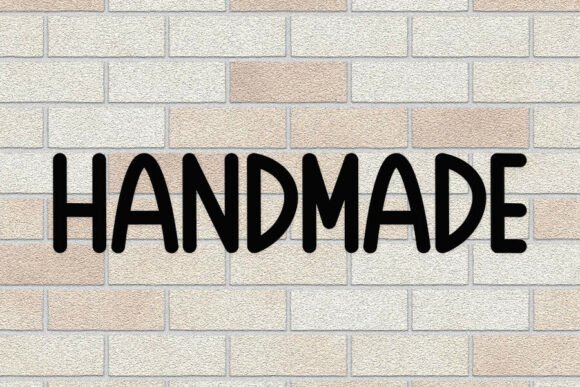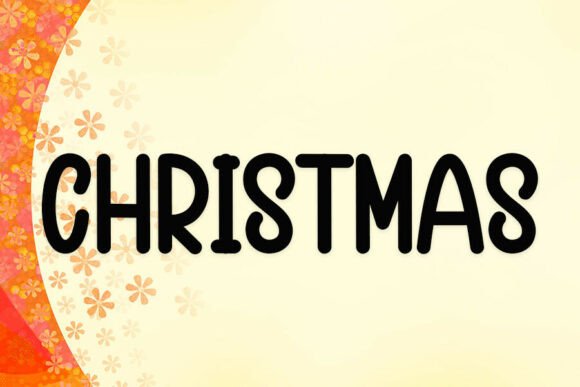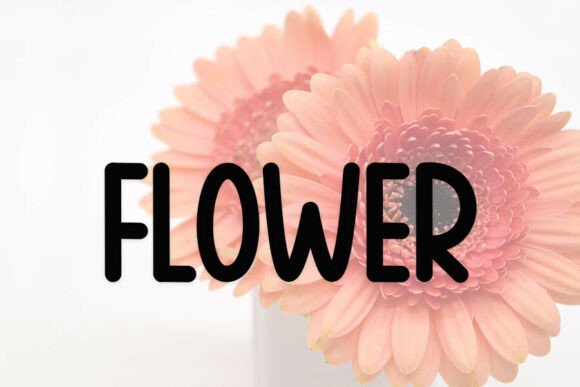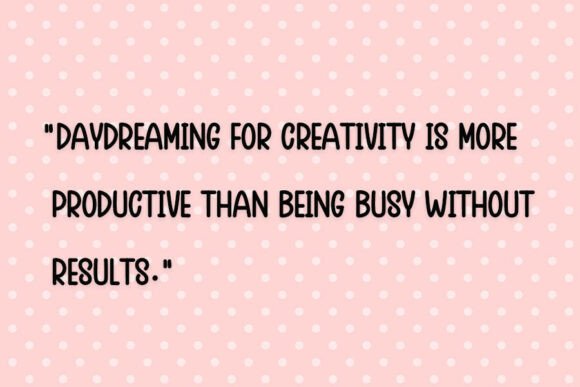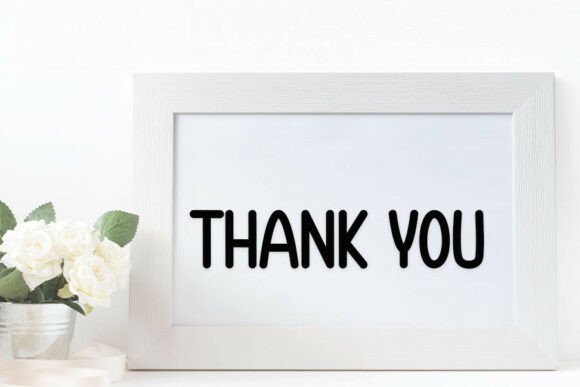
Introduction to Limited Edition Font
Imagine you’re brainstorming ideas for a new graphic design project, and suddenly, the perfect font pops into your mind. You envision it in bold, playful letters, grabbing the attention of your audience and setting the tone for your entire creative endeavor. For designers, finding the right font can be a game-changer – it’s the difference between a project that stands out and one that gets lost in the crowd.
That’s where the Limited Edition Font comes in – a striking, super-bold handwritten font that’s sure to make an impact. With its clean, rounded edges and chunky, marker-style letterforms, this font is perfect for adding a youthful, urban, and modern feel to your projects. Whether you’re working on a casual apparel branding, a catchy social media headline, or a bold product packaging, this Limited Edition Font is a valuable addition to any design resource.
Key Features of Limited Edition Font
- High-quality design resource perfect for creative projects, offering a unique and exclusive look.
- Unique characteristic: Each letter is carefully crafted with intricate details and subtle nuances, making it a standout choice for designers seeking a distinctive look.
- Perfect for designers, artists, and creatives looking for a high-quality, exclusive font to elevate their design work.
Honest Review: Limited Edition Font
I recently stumbled upon the Limited Edition Font, and I’m excited to share my thoughts on this design resource. As a designer, I’m always on the lookout for high-quality fonts that can elevate my creative projects. The Limited Edition Font is a great addition to any design arsenal, offering a unique and stylish aesthetic.
What works well: ✨ The font is incredibly versatile, suitable for a wide range of design applications, from logos to typography-heavy projects. The designer has also provided a transparent background, making it easy to work with in various design software.
Here are some key features I appreciated:
- High-quality design: The font is well-designed, with a focus on aesthetics and readability.
Limitations: ⚠️ The font is limited in its customization options, which may be a drawback for some designers. Additionally, the font may not be suitable for very small text sizes.
Overall, I’m impressed with the Limited Edition Font. It’s a great resource for designers who want to add a touch of style to their creative projects. While it may have some limitations, it’s definitely worth checking out.
To get the most out of the Limited Edition Font, use it with a transparent background to create a stunning visual effect. You can also combine it with other design elements, such as graphics and images, to create a unique and eye-catching design.
The Limited Edition Font is perfect for a variety of creative projects, including logos, branding, and marketing materials. It’s also great for creating invitations, posters, and other visual communications.
The Limited Edition Font is a versatile design resource that can be used for both digital and print projects. Its high-quality design ensures that it looks great on screens and in print, making it an excellent choice for designers who want to create a cohesive brand identity across multiple platforms.